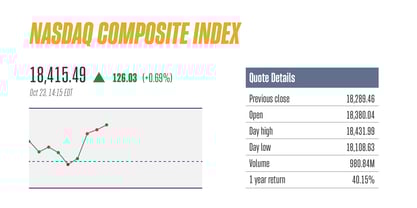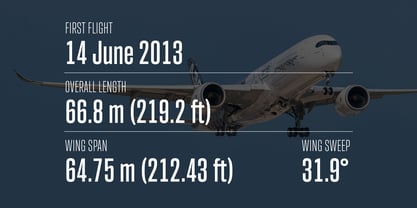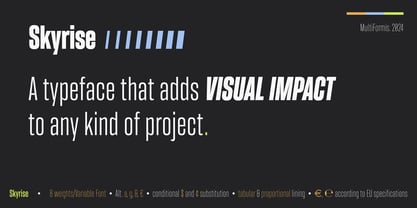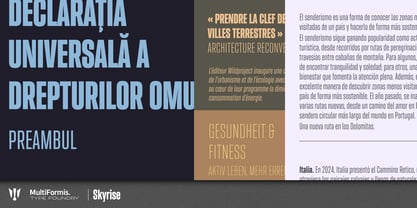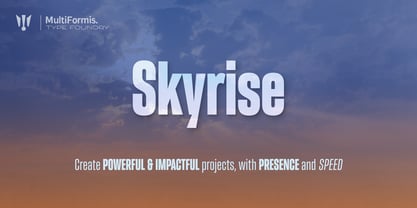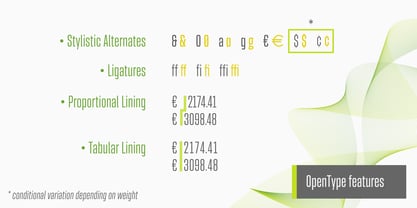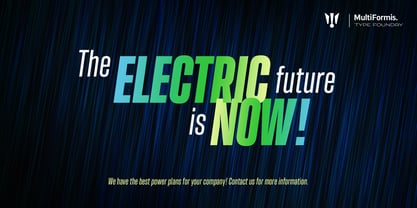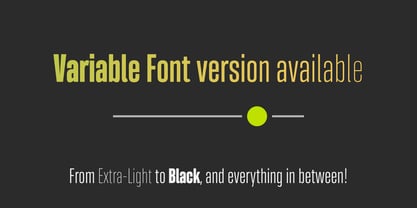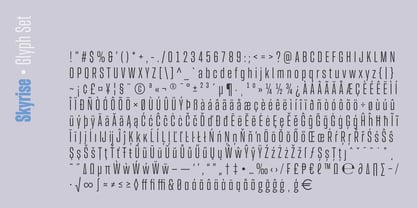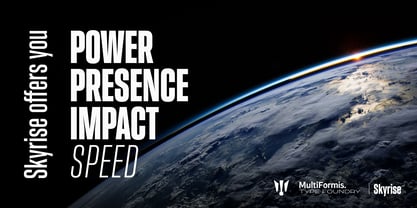
Skyrise
by Multiformis
The Skyrise Font Family was designed by Pedro Madeira and published by Multiformis. Skyrise contains 18 styles and family package options.
Designed with the intent of creating impactful and powerful projects, Skyrise consists of a very condensed, display type family, with a very high x-height and significant curve tension. The shoulders’ tension also contribute to a more dynamic appearance, as they contrast with the overall boxlike look of other round glyphs.
The oblique version conveys speed and fits very well with sports projects, adding the inherited presence of the upright version.
Skyrise contains tabular and proportional lining, alternative lowercase ‘a’ and ‘g’, ampersand, ‘zero’, Euro and “estimated signs designed following the official specifications, ‘ff’, ‘fi’ and ‘ffi’ ligatures, and finally a “dollar” and “cent” signs that changes shape according to its weight.
There is also a Variable Font version for maximum flexibility.
About Multiformis
Multiformis is an independent type foundry founded in 2020 by Pedro Madeira, a Portuguese type designer, and is based in Lisbon, Portugal. Our goal is to create beautiful and also useful typefaces, either for professional design projects or personal use. Multiformis was born from the founder's long-time passion and even obsession with type design. We combine professionalism with art.